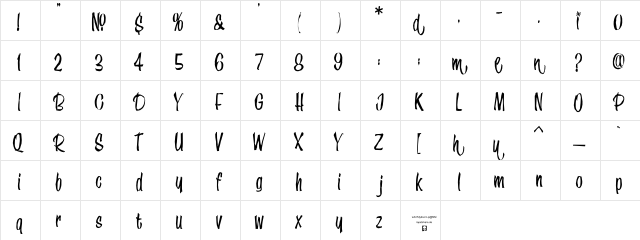
LHF Speedstyle I Bold Regular
| Foundry | Arthur Vanson for Letterhead Fonts |
| Designer | Arthur Vanson |
Design Context for LHF Speedstyle I Bold Typeface
LHF Speedstyle I Bold is a composed and adaptable typeface that performs quietly and consistently across a wide range of design contexts. The heavy weight commands attention and anchors typographic hierarchies.